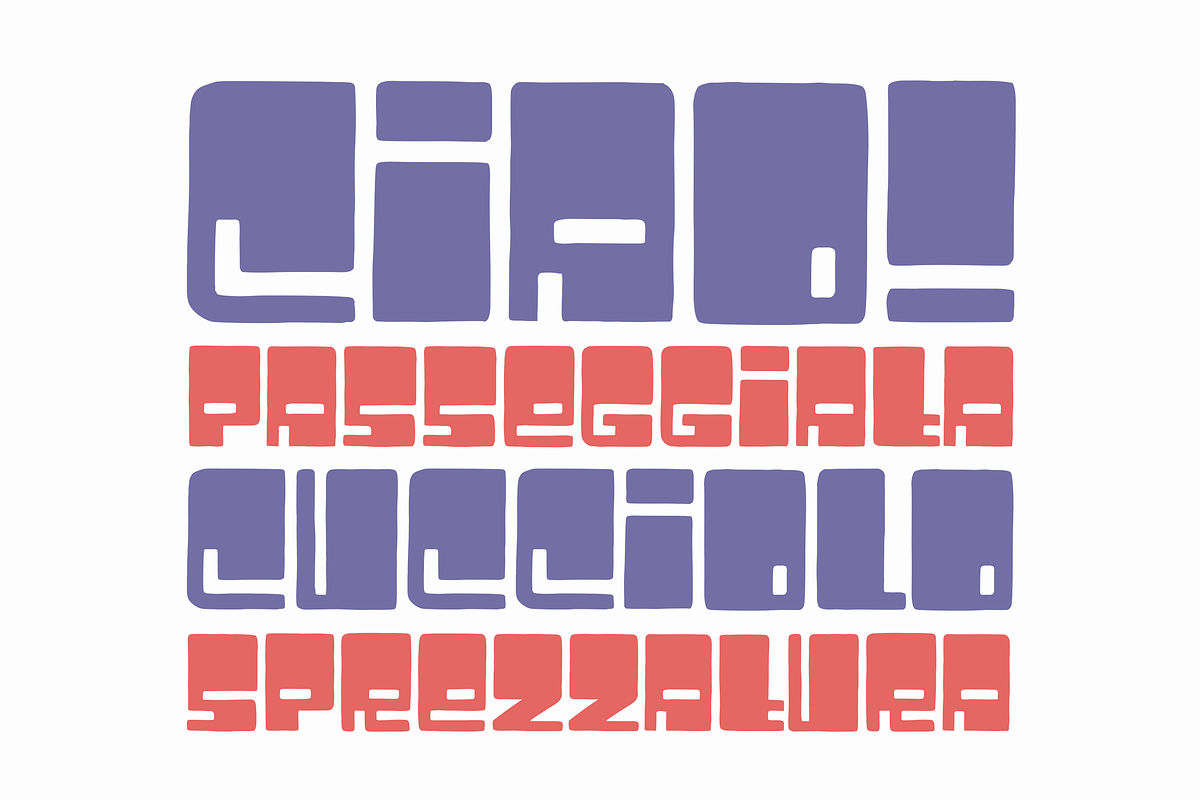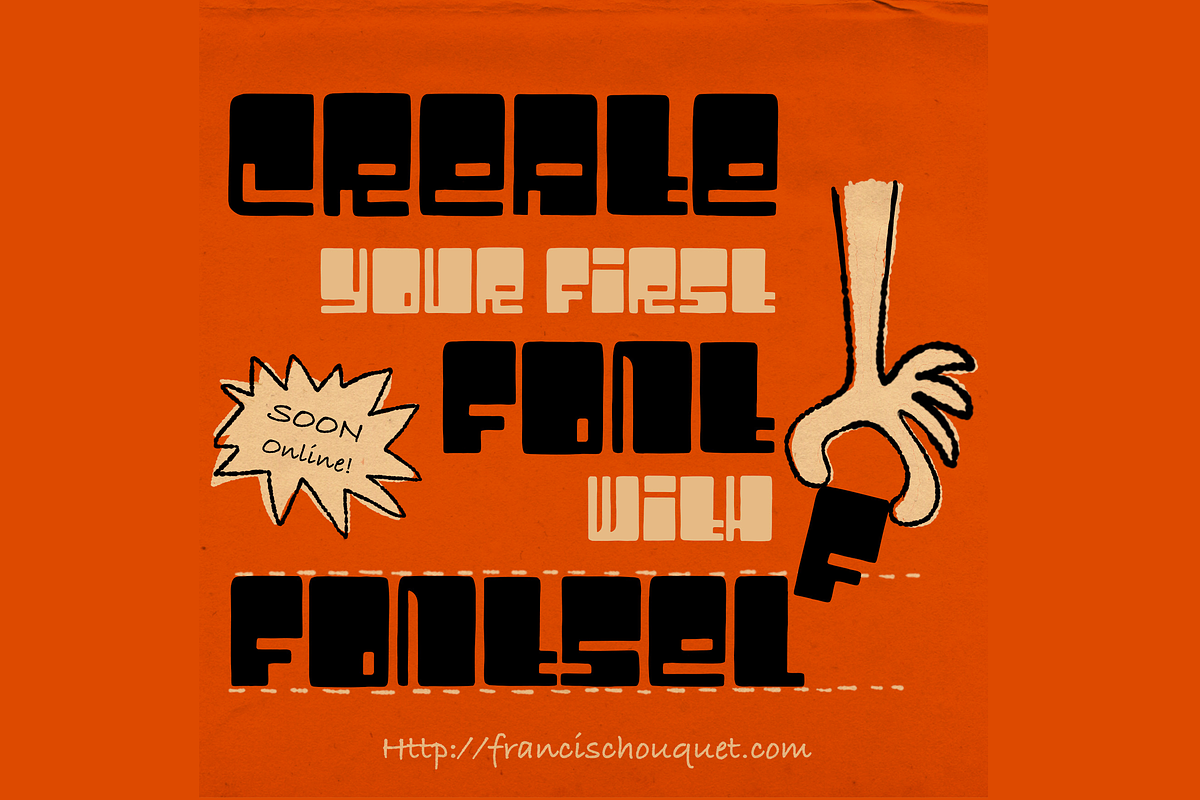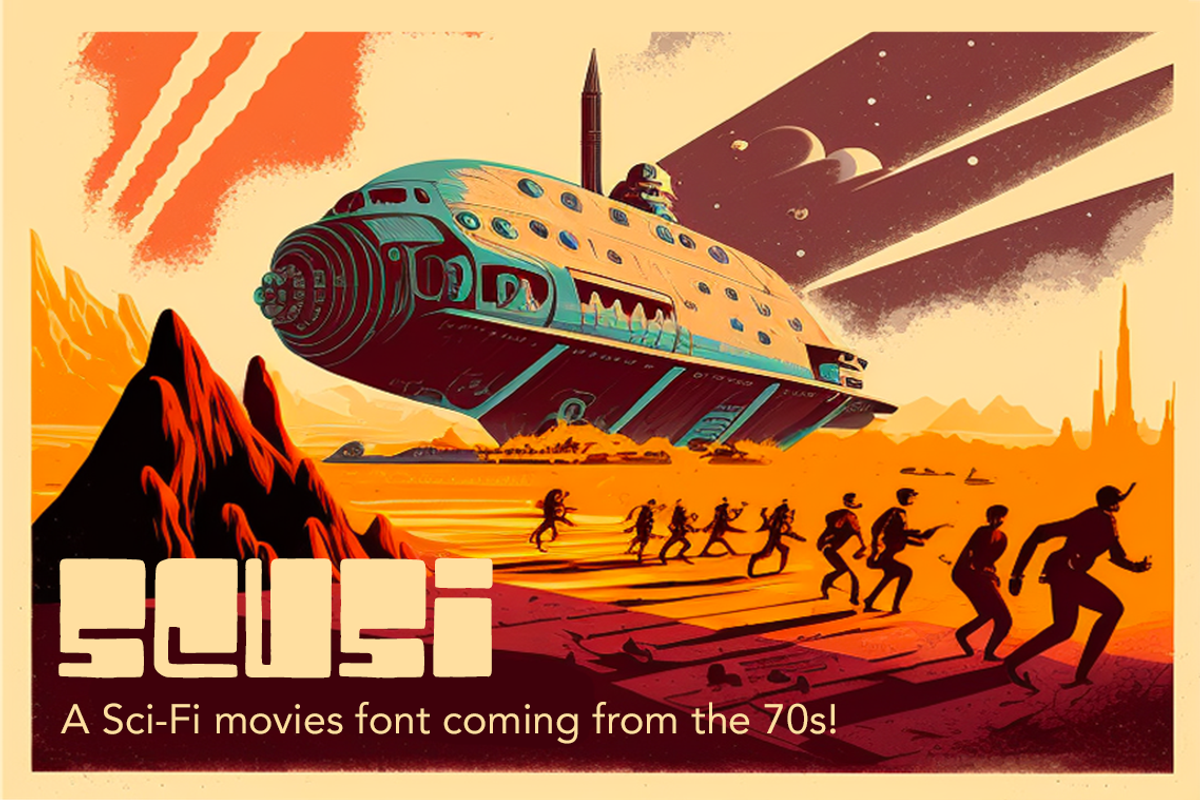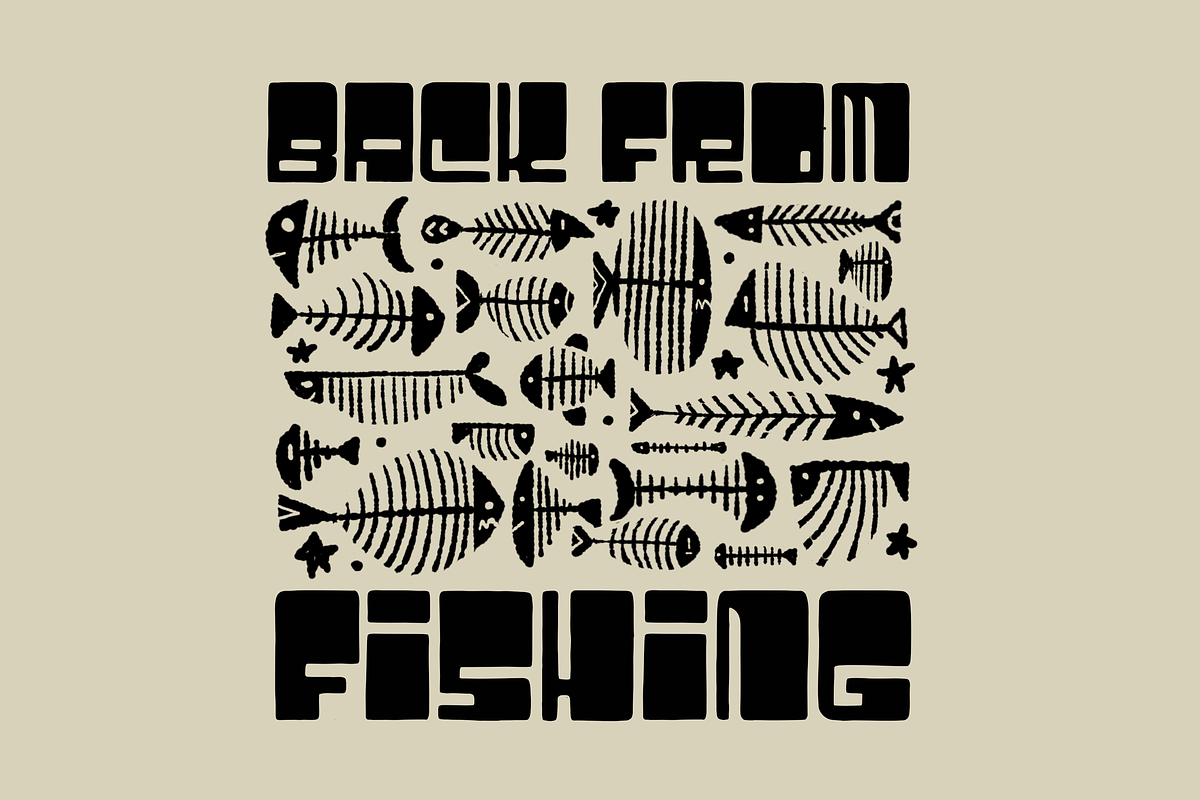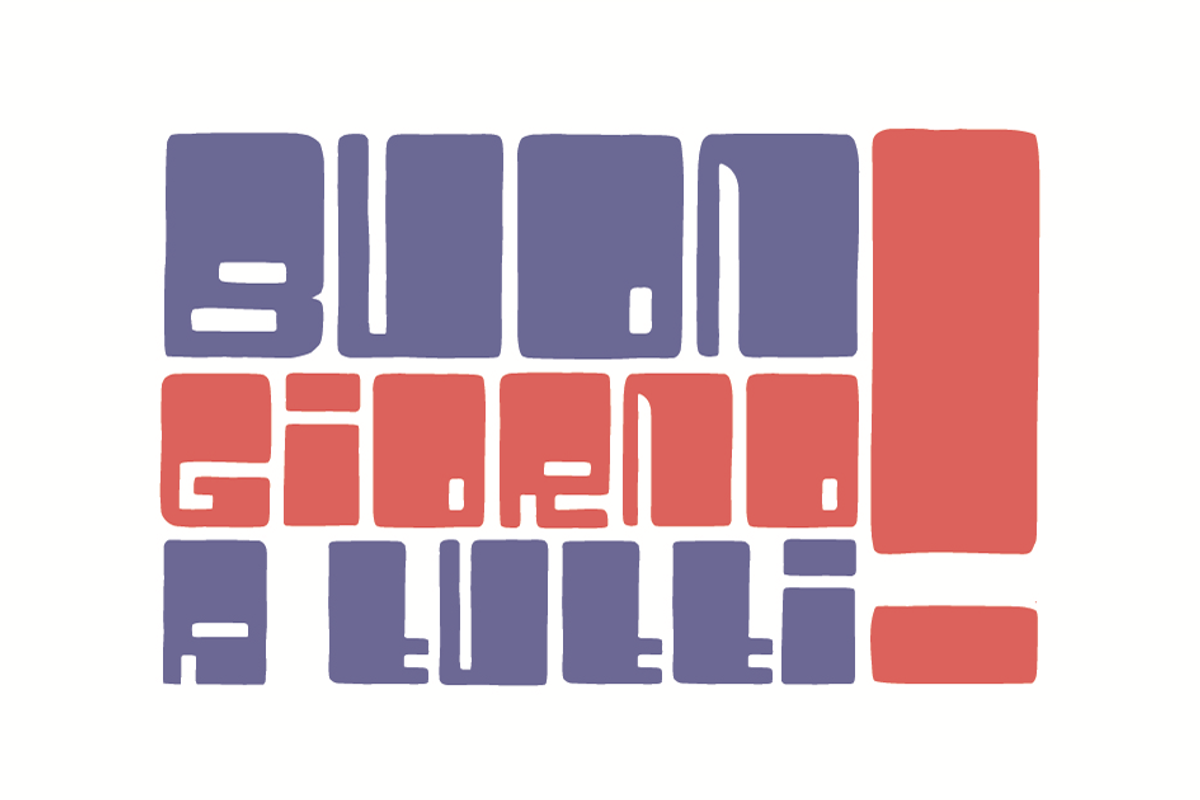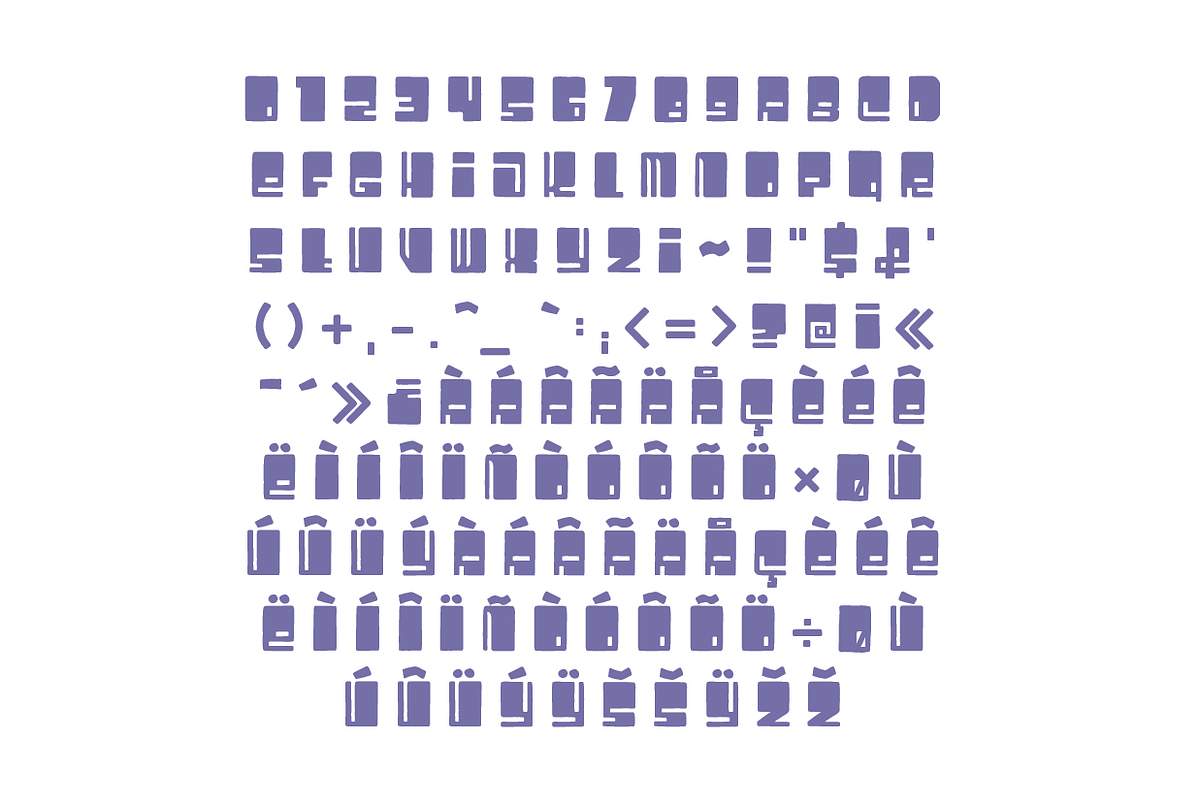
Scusi is a display font based on Italian movie posters from the 60s and 70s. One of the most known movie posters maker is probably Sandro Symeoni which gave its full place to the titles. Scusi is based on some of his letterings, but went in another direction in terms of coherence. If the A reminds from Symeoni’s work, I did develop the whole alphabet so there is a great homogeneity between letters, like they all have the same shapes and consistent counterforms. Scusi can easily be used for posters, festivals, cartoons.